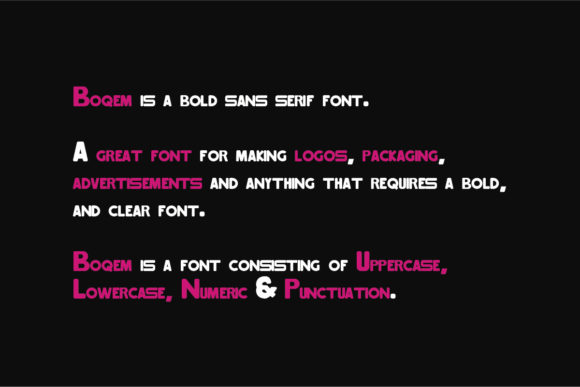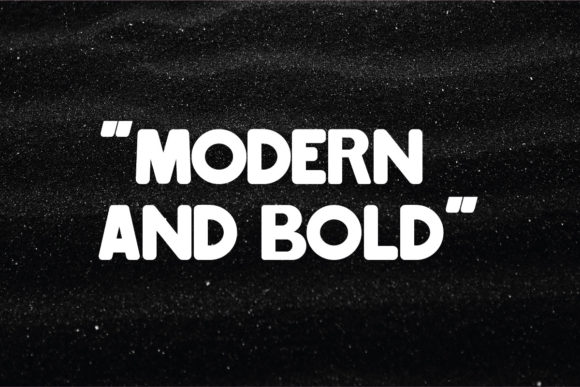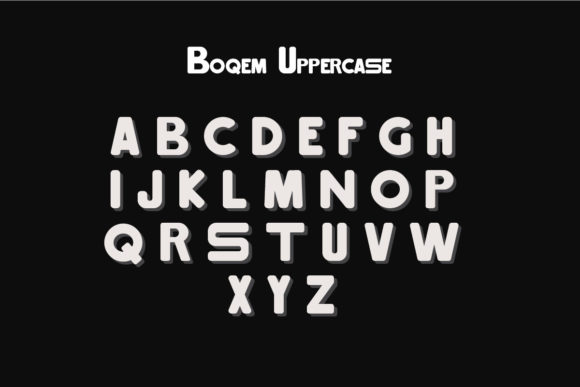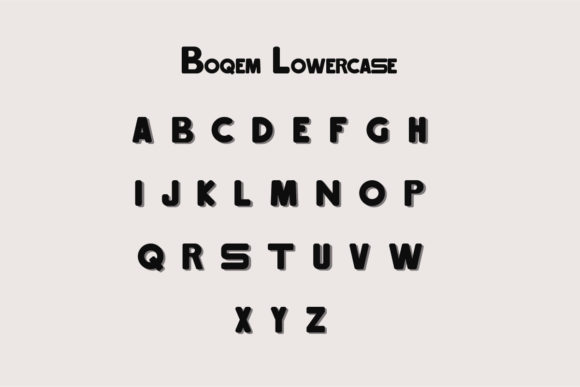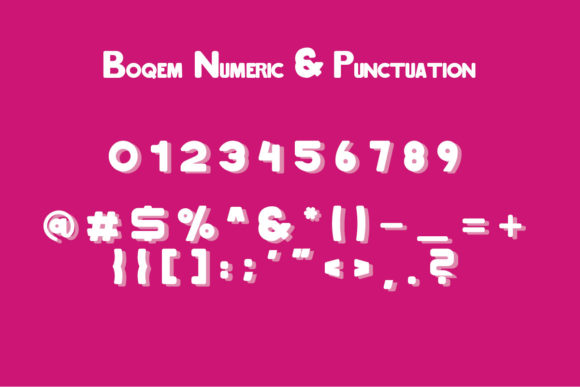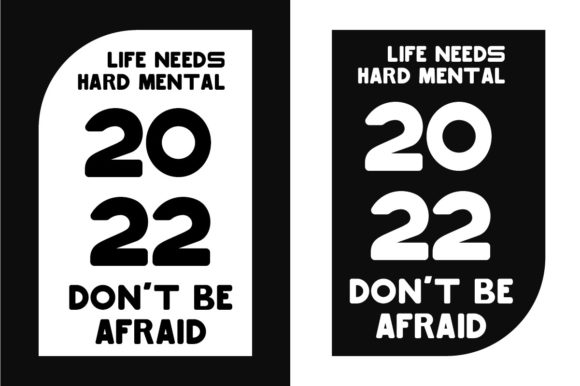
Introducing Boqem Font: The Ultimate Display Font for Bold and Creative Ideas
Are you tired of using the same old fonts for your creative projects? Look no further than Boqem Font, a cool and bold display font that’s sure to take your designs to the next level. With its thick, sturdy letters, Boqem Font is the perfect addition to any creative idea, making it easy to bring your vision to life.
What Makes Boqem Font So Special?
Boqem Font is a unique and eye-catching display font that’s designed to make a statement. Its bold and chunky letters are perfect for headlines, titles, and any other text that needs to stand out. Whether you’re working on a graphic design project, crafting a logo, or creating social media content, Boqem Font is the perfect choice.
One of the key features that sets Boqem Font apart is its versatility. It can be used in a variety of contexts, from digital designs to print materials, and still look great. The font is highly legible, even at large sizes, making it perfect for billboards, posters, and other large-format designs.
How to Use Boqem Font in Your Designs
Using Boqem Font in your designs is easy. Here are a few tips to get you started:
- Pair it with a simple font: Boqem Font is bold and eye-catching, so it’s best to pair it with a simpler font for body text. This will create a nice contrast and make your design more visually appealing.
- Use it for headlines: Boqem Font is perfect for headlines and titles. Use it to grab attention and draw the reader in.
- Experiment with colors: Boqem Font looks great in a variety of colors. Try experimenting with different colors and gradients to find the perfect look for your design.
Benefits of Using Boqem Font
There are many benefits to using Boqem Font in your designs. Here are a few:
- Instant recognition: Boqem Font is a unique and eye-catching font that’s sure to grab attention. Use it to create instant recognition for your brand or product.
- Highly legible: Boqem Font is highly legible, even at large sizes. This makes it perfect for billboards, posters, and other large-format designs.
- Versatile: Boqem Font can be used in a variety of contexts, from digital designs to print materials.
Who Can Benefit from Using Boqem Font?
Boqem Font is perfect for designers, crafters, and anyone looking to add a bold and eye-catching font to their creative projects. Here are a few examples of who can benefit from using Boqem Font:
- Graphic designers: Boqem Font is perfect for graphic designers looking to create bold and eye-catching designs.
- Crafters: Boqem Font is great for crafters who want to add a personal touch to their projects.
- Social media managers: Boqem Font is perfect for social media managers looking to create eye-catching social media content.
In conclusion, Boqem Font is a cool and bold display font that’s perfect for adding a touch of personality to your creative projects. Its thick, sturdy letters make it highly legible and versatile, making it perfect for a variety of contexts. Whether you’re a designer, crafter, or social media manager, Boqem Font is a great addition to your font library.